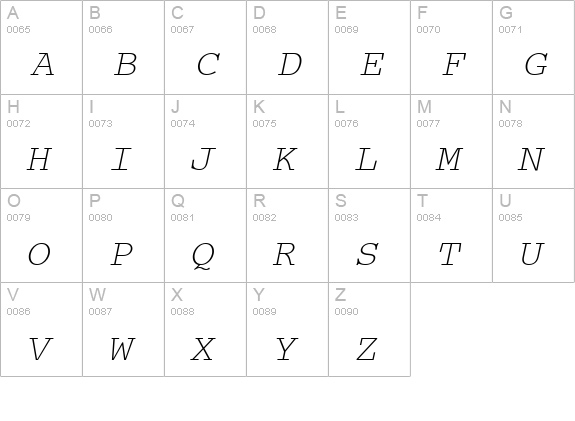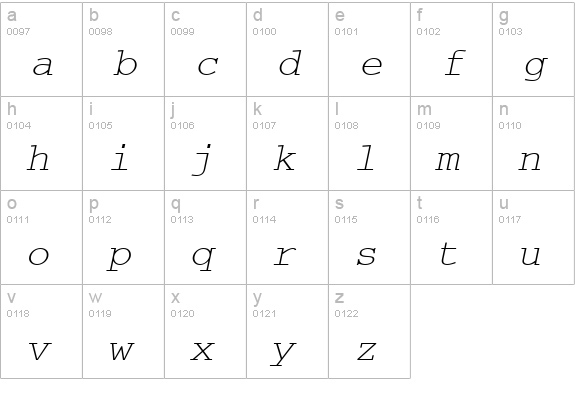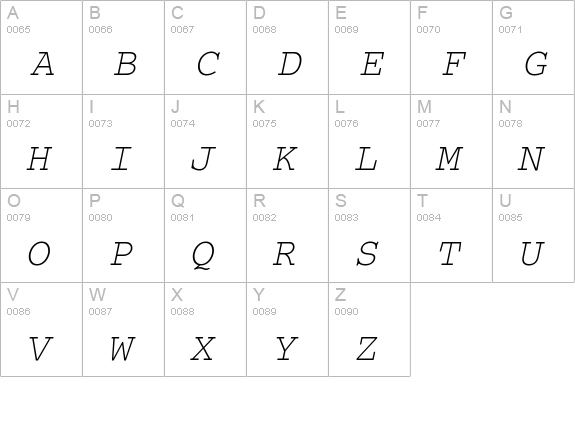
Courier ITALIC Font Details
Courier ITALIC is a distinctive, italic variant in the Courier typeface family \xE2\x80\x94 well suited to design and typography projects.
Courier ITALIC font is a classic and timeless typeface that exudes elegance and professionalism. Its sleek and slanted design adds a touch of sophistication to any project, making it perfect for use in documents, invitations, and more. The clean lines and sharp angles of Courier ITALIC font make it easy to read and pleasing to the eye. What sets Courier ITALIC font apart is that it is available for free download at FontsMarket.com. This means you can easily access this stylish font without any cost, making it a great choice for budget-conscious designers and individuals looking to enhance their projects with a touch of class. Whether you're working on a print or digital design, Courier ITALIC font is sure to make a statement and elevate your work to the next level. Download it today and give your projects a professional edge with this elegant and versatile typeface.